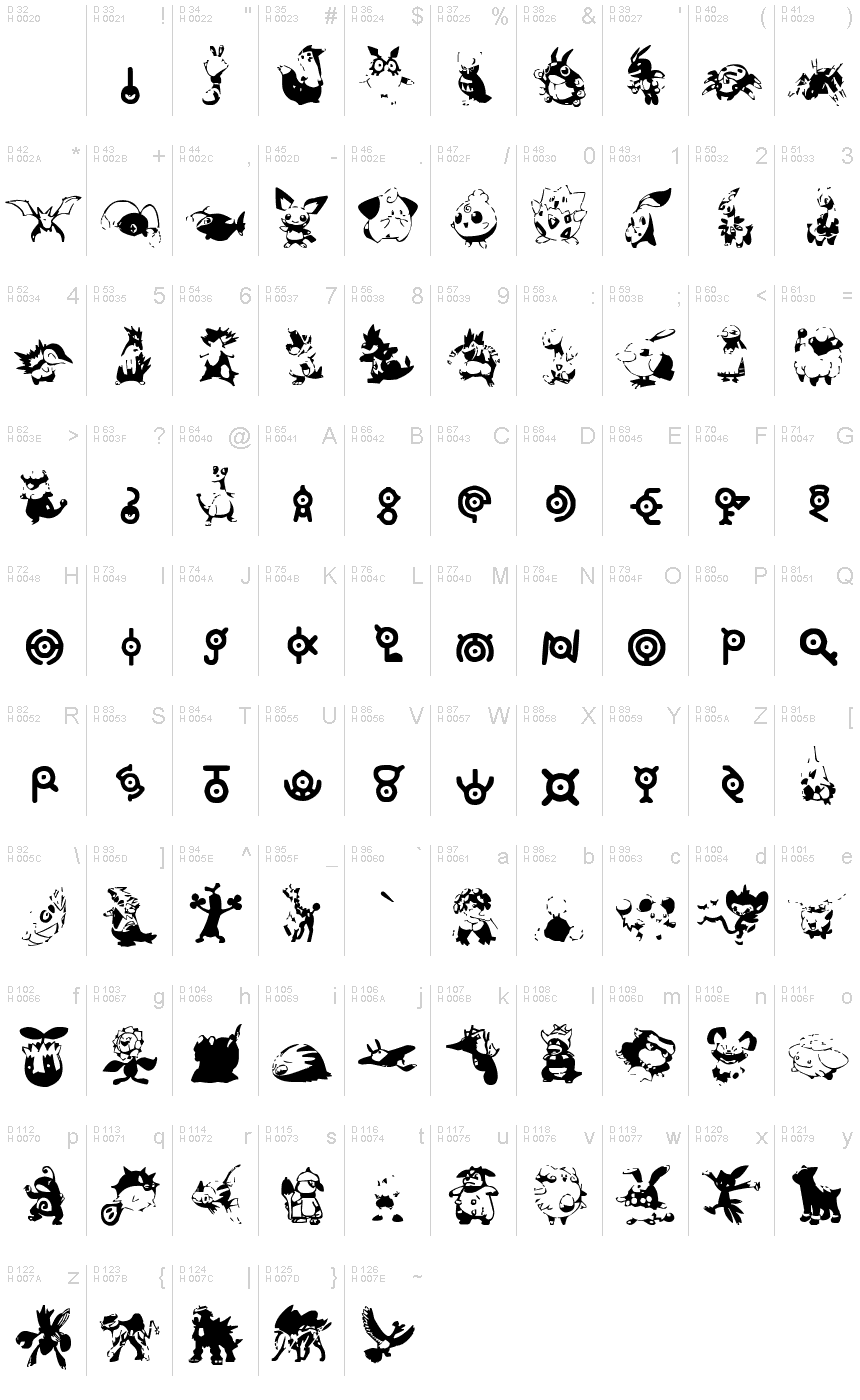
Markdings Three
Meet Markdings Three, the playful cartoon font that will add a touch of whimsy to your projects. Created by an innovative designer, this dingbats typeface is filled with delightful icons and illustrations perfect for adding character and charm. Whether you're designing children's books, crafting greeting cards, or creating eye-catching social media posts, Markdings Three is the ideal font to bring your ideas to life. With its unique style and vibrant visuals, this font is sure to capture attention and spark joy in any project you tackle. Let your creativity soar with Markdings Three!